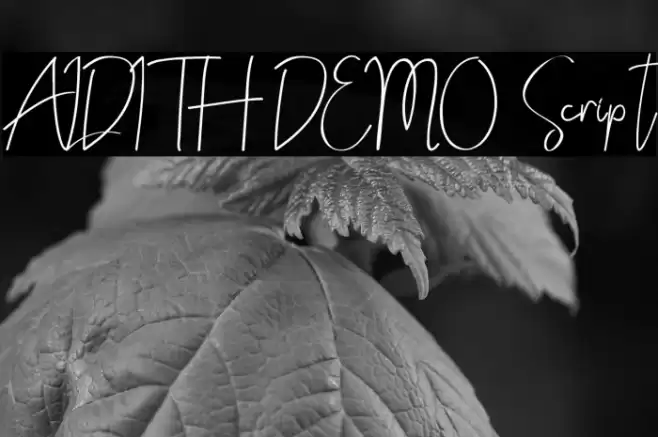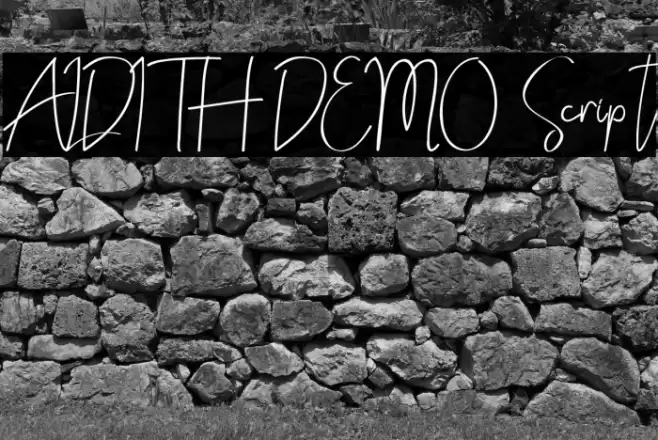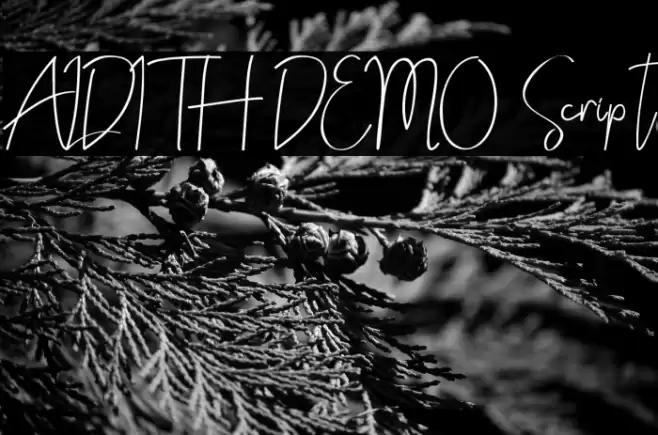
ALDITH DEMO Script Font
ALDITH DEMO Script Description
This script font exudes a lively and dynamic character, with its flowing and interconnected strokes. The uppercase letters are tall and elegant, featuring a slight slant that adds to the font's graceful movement. Lowercase letters maintain a consistent flow, enhancing readability while preserving the font's artistic flair. The strokes are thin and delicate, contributing to a sophisticated and refined appearance. This font is ideal for projects that require a personal touch, such as invitations, greeting cards, or branding materials. Its unique style captures attention while maintaining legibility, making it versatile for various design applications.
A lively and dynamic script font with flowing, interconnected strokes from Regular fonts.
- Proposed Projects: Ideal for invitations, greeting cards, branding materials, and artistic designs.
- Weight: Light
- Use Case: Headlines, Artistic designs, Invitations